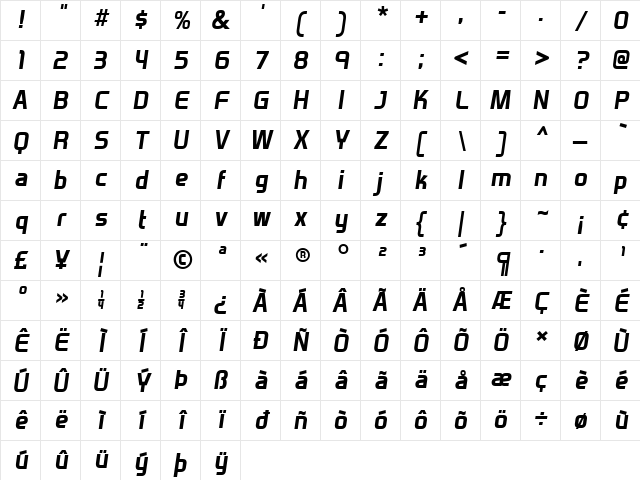
Venacti Bold Italic
Design Context for Venacti
Venacti is a composed and adaptable typeface that performs quietly and consistently across a wide range of design contexts. The slanted form adds forward momentum and visual energy. Its bold stroke weight gives it real presence on the page.
Pro Tip: Use Venacti for emphasis, pull quotes, and subheadings where its slanted energy can add rhythm to the layout.